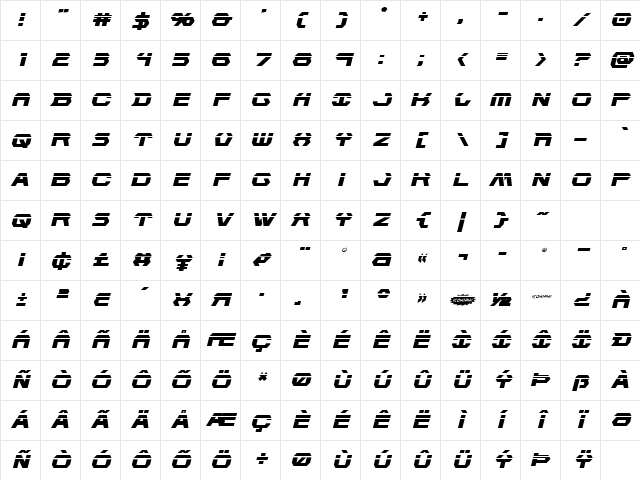
New Cyborg Laser Italic Regular
Design Context for New Cyborg Laser Italic
New Cyborg Laser Italic is a composed and adaptable typeface that performs quietly and consistently across a wide range of design contexts. The slanted form adds forward momentum and visual energy.
Pro Tip: Use New Cyborg Laser Italic for emphasis, pull quotes, and subheadings where its slanted energy can add rhythm to the layout.